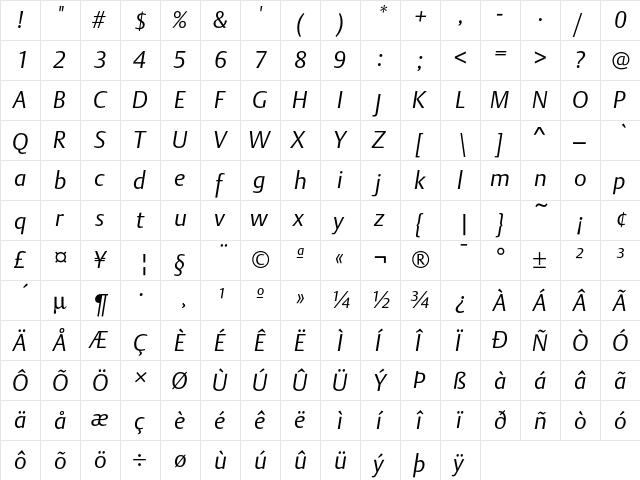
DTLArgoT LightItalic Font Preview
Design Context for DTLArgoT Typeface
DTLArgoT takes a measured approach to typography — its balanced proportions and neutral character make it a reliable workhorse for both digital and print work. The dynamic lean of this cut emphasises speed and emphasis in any layout. Its slender proportions lend an understated elegance to any composition.
Pro Tip: Try DTLArgoT for annotation and caption copy alongside an upright companion — the contrast in angle creates a dynamic but ordered typographic system.